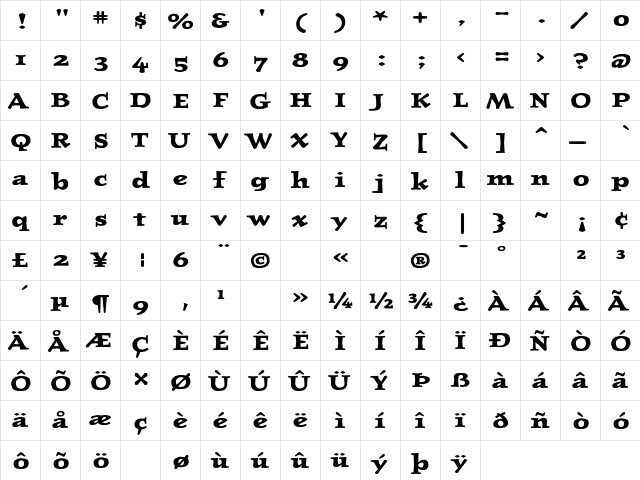
JournalOldstyle-UltraBold Ultra Bold
Design Context for JournalOldstyle-UltraBold Typeface
JournalOldstyle-UltraBold carries the refined structure of traditional serif typography, with bracketed terminals and considered proportions that communicate credibility and craft. Its bold stroke weight gives it real presence on the page.